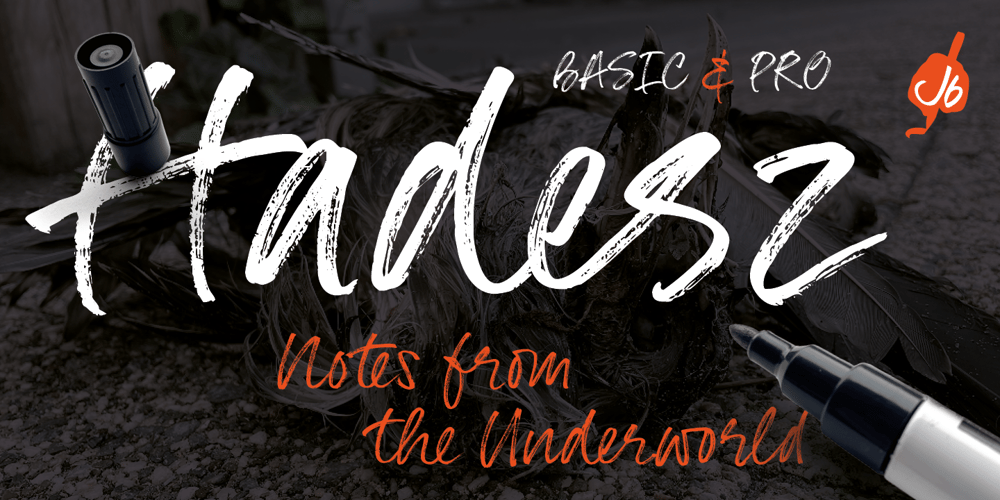
Hadesz PRO
Hadesz PRO font
Hadesz PRO Font Family was designed by Geert Dijkers and published by JOEBOB graphics. Hadesz PRO contains 1 styles and family package options. Hadesz is a lusty and playful font with a rough, brushy texture. It comes with an abundance of opentype features, which make for the handwritten authenticity one looks for in a handwriting font.Hadesz comes in two versions: Basic (without ligatures) and PRO (the complete set).